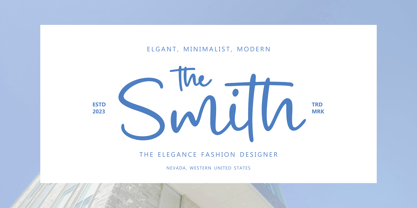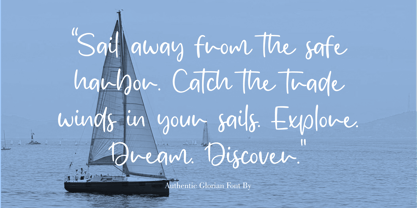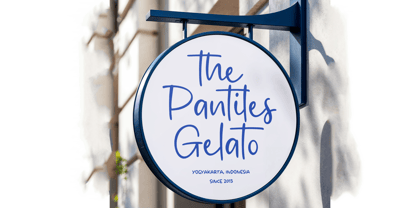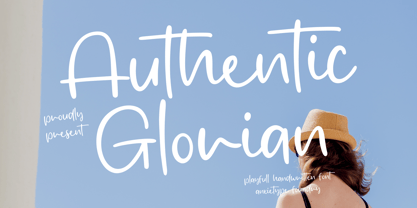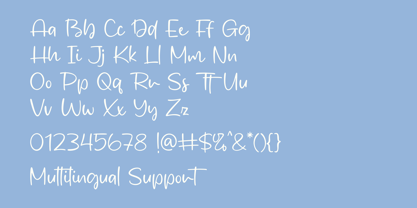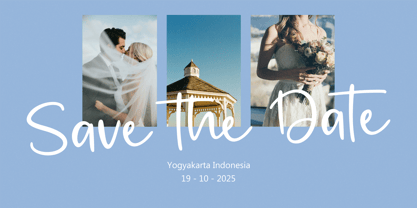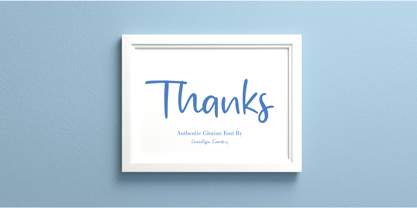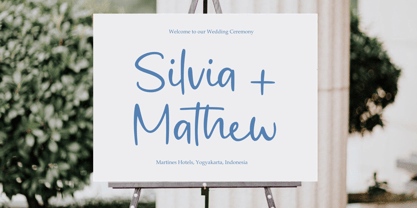
Authentic Glorian
by Anxietype Foundry
The Authentic Glorian Font Family was designed by Bias Surya Buana, Annas Rifky Anhar and published by Anxietype Foundry. Authentic Glorian contains 1 styles. More about this family
Unveiling Authetic Glorian, the monoline handscript font, expertly curated by Anxietype Foundry. Whether it's enriching your product packaging, lending an edge to your branding projects, or adding a dash of elegance to your magazine or social media profiles, Authetic Glorian never disappoints. Not just that, it makes an excellent choice for wedding details or powerfully expressing words against a background. Indulge in the unique charm of Authetic Glorian and let your designs narrate a story.
Designers: Bias Surya Buana, Annas Rifky Anhar
Foundry: Anxietype Foundry